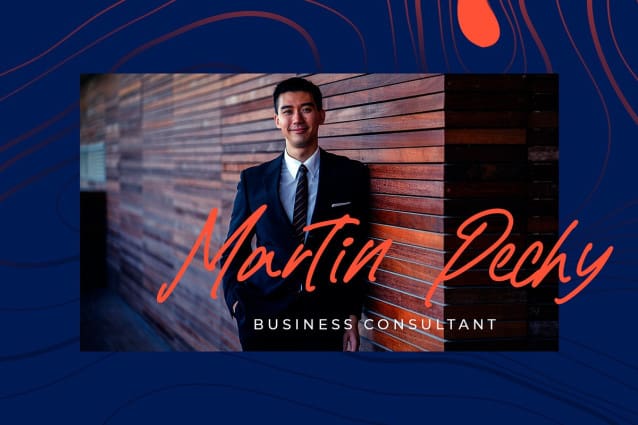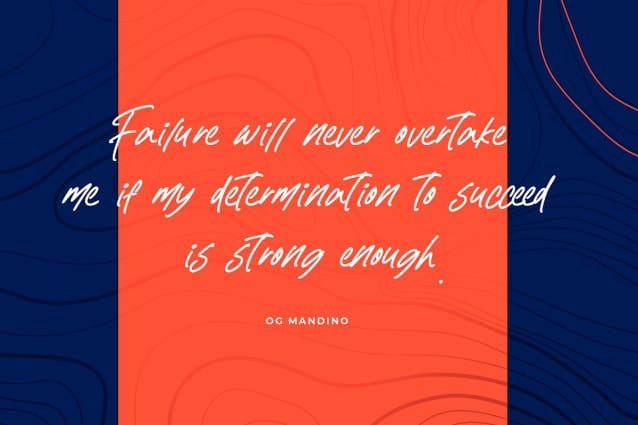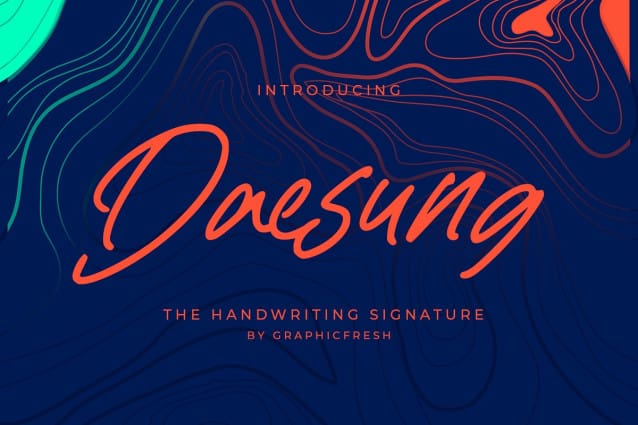
Daesung Handwriting Font
Daesung Handwriting Font. It comes with an elegant and modern style which is perfect to make any design stand out! This font is perfect for branding, wedding invites, magazines, mugs, business cards, quotes, posters, and more.